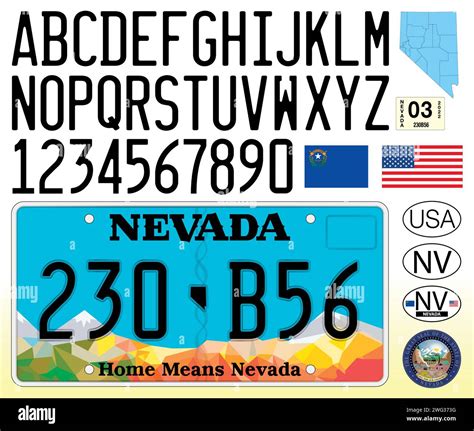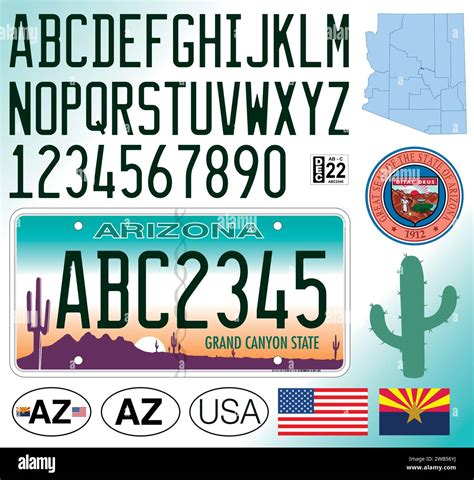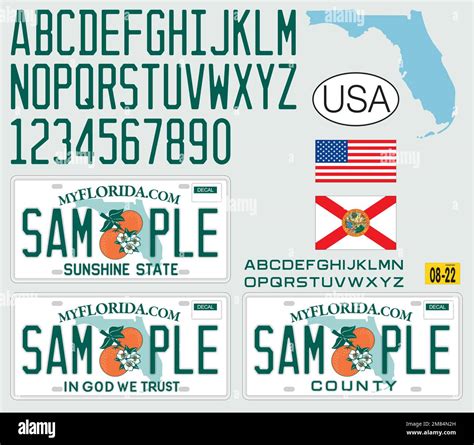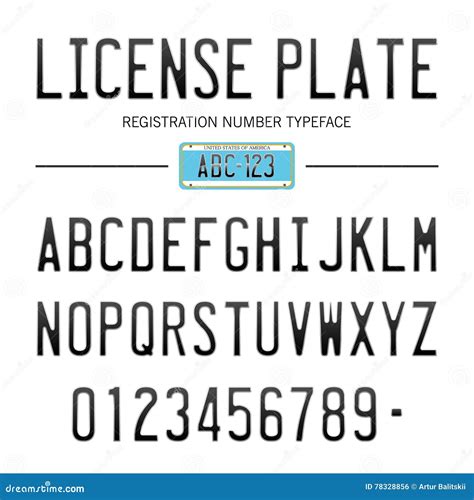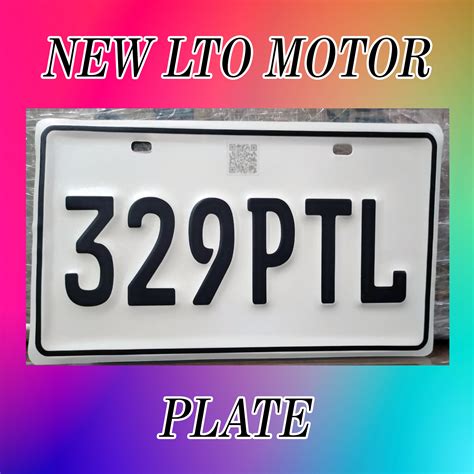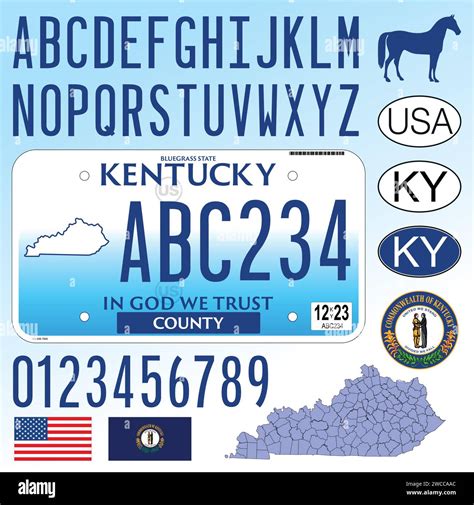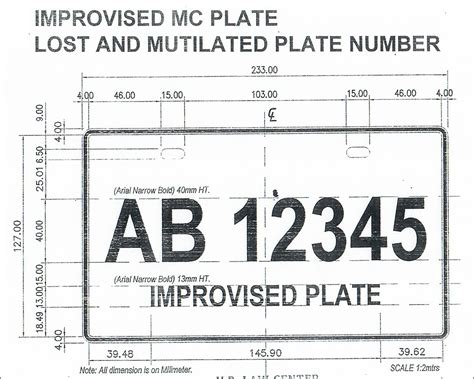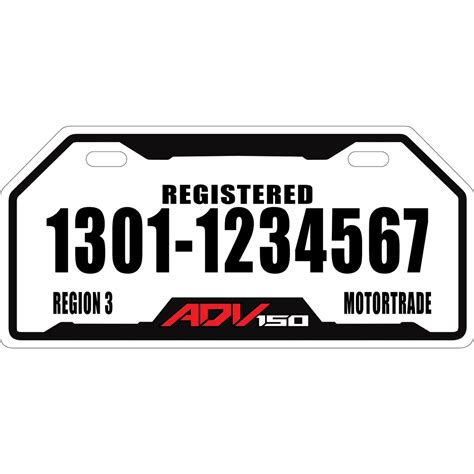
In the world of vehicle identification, the Plate No Font plays a crucial role. License plates are not just pieces of metal or plastic; they are essential for law enforcement, traffic management, and personal identification. The font used on license plates, often referred to as the Plate No Font, is designed to be clear, legible, and standardized. This ensures that the information on the plate can be easily read and recognized, whether by human eyes or automated systems like license plate recognition (LPR) technology.
Understanding the Importance of Plate No Font
The Plate No Font is more than just a stylistic choice; it serves several critical functions:
- Legibility: The font must be easily readable from a distance and under various lighting conditions. This is crucial for law enforcement and traffic cameras.
- Standardization: A standardized font ensures consistency across different regions and countries, making it easier to recognize and verify license plates.
- Security: The design of the Plate No Font can include features that make it difficult to forge or alter, enhancing the security of vehicle identification.
- Automation: Modern LPR systems rely on clear and consistent fonts to accurately read and process license plate information.
The Evolution of Plate No Font
The design of the Plate No Font has evolved over the years to meet the changing needs of vehicle identification. Early license plates often used simple, handwritten fonts that were not standardized. As technology advanced, so did the need for a more uniform and legible font. Today, most countries use a specific Plate No Font that is designed to be easily read by both humans and machines.
One of the most widely recognized Plate No Fonts is the "FHWA Series E" font, developed by the Federal Highway Administration in the United States. This font is designed to be highly legible and is used on license plates across many states. Other countries have their own standardized fonts, each with unique characteristics tailored to their specific needs.
Designing a Plate No Font
Designing a Plate No Font involves several key considerations:
- Character Shape: The characters must be distinct and easily recognizable. For example, the number "1" should not be confused with the letter "I".
- Spacing: The spacing between characters and lines is crucial for readability. Too much or too little space can make the plate difficult to read.
- Size: The size of the characters must be large enough to be read from a distance but not so large that it takes up too much space on the plate.
- Contrast: The contrast between the characters and the background must be high to ensure visibility under different lighting conditions.
Here is a table showing some of the key characteristics of different Plate No Fonts used around the world:
| Country | Font Name | Characteristics |
|---|---|---|
| United States | FHWA Series E | Highly legible, used in many states |
| United Kingdom | Charles Wright | Designed for clarity and security |
| Germany | DIN 1451 | Standardized for all official documents |
| Japan | JIS X 0401 | Designed for both Japanese and English characters |
The Role of Plate No Font in Law Enforcement
Law enforcement agencies rely heavily on the Plate No Font for various purposes, including:
- Traffic Enforcement: Clear and legible license plates help officers quickly identify vehicles involved in traffic violations.
- Crime Prevention: License plates are often the first piece of evidence in criminal investigations. A clear Plate No Font makes it easier to track and identify vehicles.
- Automated Systems: LPR systems use the Plate No Font to automatically read and process license plate information, aiding in real-time monitoring and enforcement.
For example, in the United States, the FHWA Series E font is used in many states because it is designed to be easily read by both humans and automated systems. This ensures that law enforcement can quickly and accurately identify vehicles, enhancing public safety.
๐ Note: The effectiveness of a Plate No Font in law enforcement can be significantly enhanced by the use of high-quality materials and reflective coatings on license plates.
The Impact of Plate No Font on Traffic Management
Efficient traffic management relies on the ability to quickly and accurately identify vehicles. The Plate No Font plays a crucial role in this process by ensuring that license plates are easily readable. This is particularly important in congested urban areas where traffic cameras and LPR systems are widely used.
In many cities, traffic cameras are equipped with LPR technology that uses the Plate No Font to read and process license plate information in real-time. This allows traffic management systems to:
- Monitor Traffic Flow: By tracking the movement of vehicles, traffic management systems can identify congestion points and optimize traffic flow.
- Enforce Traffic Rules: Automated systems can detect and enforce traffic violations, such as running red lights or speeding.
- Improve Safety: Real-time monitoring helps identify and respond to accidents and other emergencies more quickly.
For instance, in London, the Congestion Charge system uses LPR technology to automatically read and process license plate information, helping to manage traffic flow and reduce congestion in the city center.
The Future of Plate No Font
As technology continues to advance, the Plate No Font is likely to evolve as well. Future developments may include:
- Enhanced Security Features: New fonts may incorporate additional security features to make them even more difficult to forge or alter.
- Improved Legibility: Advances in font design and materials may further enhance the legibility of license plates, making them easier to read under a wider range of conditions.
- Integration with Smart Technologies: The Plate No Font may be integrated with smart technologies, such as RFID or NFC, to provide additional layers of identification and security.
For example, some countries are already experimenting with electronic license plates that can display different information based on the context. These plates use advanced fonts and technologies to ensure that the information remains clear and legible.
In addition, the use of artificial intelligence and machine learning in LPR systems may lead to the development of new Plate No Fonts that are specifically designed to be easily read by these advanced technologies.
๐ Note: The future of the Plate No Font will likely be shaped by the ongoing advancements in technology and the evolving needs of law enforcement and traffic management.
In conclusion, the Plate No Font is a critical component of vehicle identification, playing a vital role in law enforcement, traffic management, and personal identification. Its design and evolution reflect the changing needs of society and the advancements in technology. As we look to the future, the Plate No Font will continue to adapt and improve, ensuring that it remains a reliable and effective tool for identifying and managing vehicles.